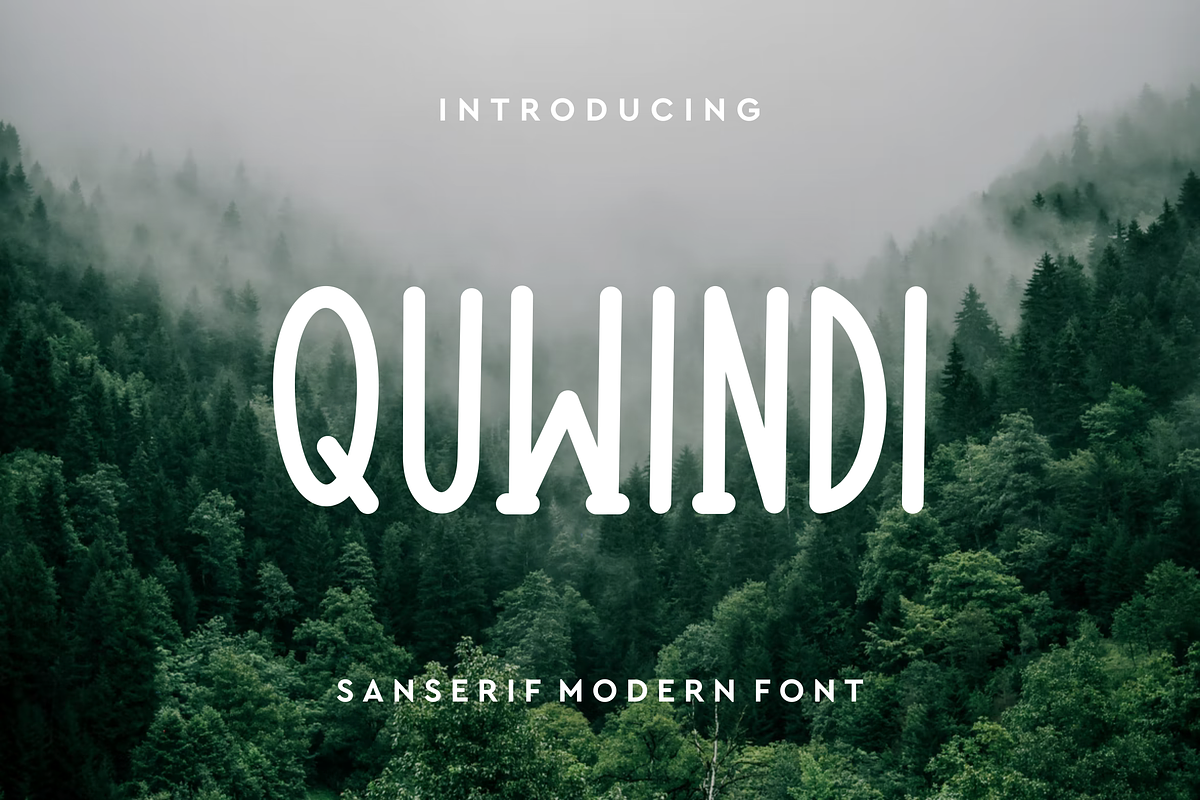
Quwindi
Introducing our new product Quwindi Font - Modern Font
Quwindi Font - Modern Font is a bold and authentic display font. The font is suitable for any branding project like logo, t-shirt printing, esport, and many more. outstanding in a wide range of contexts.